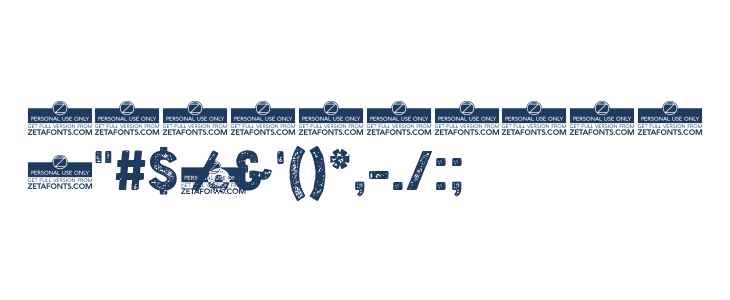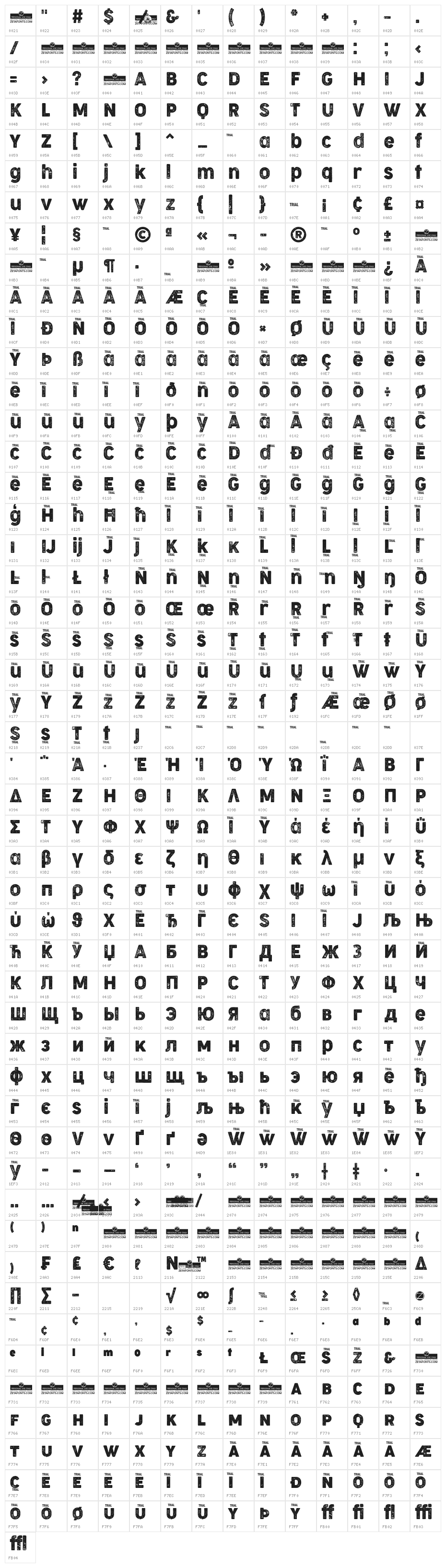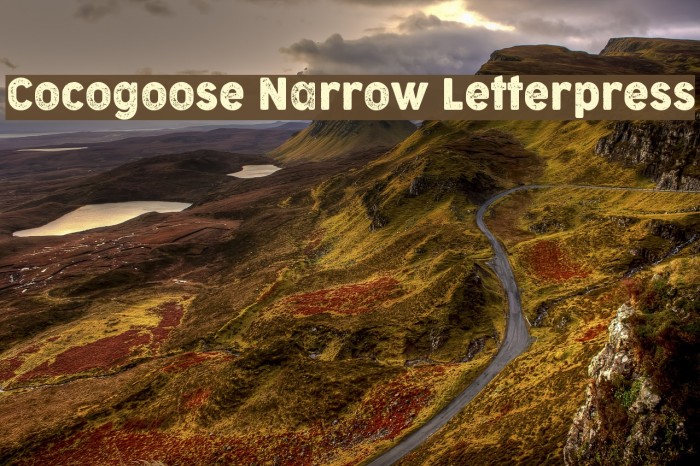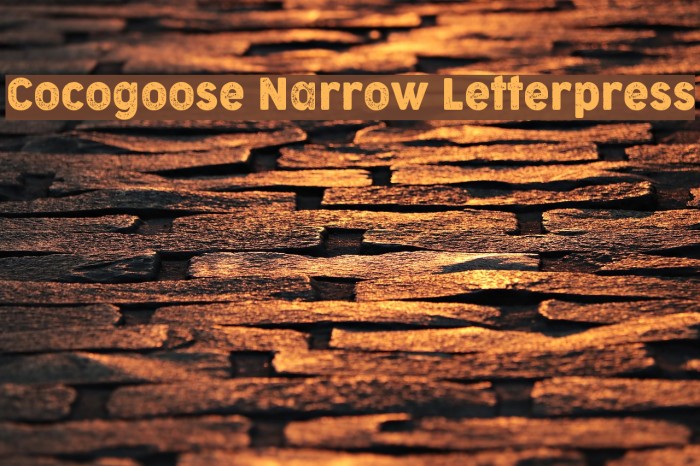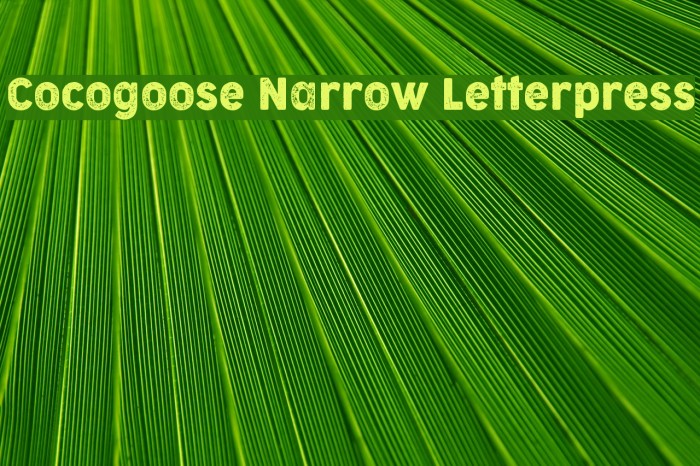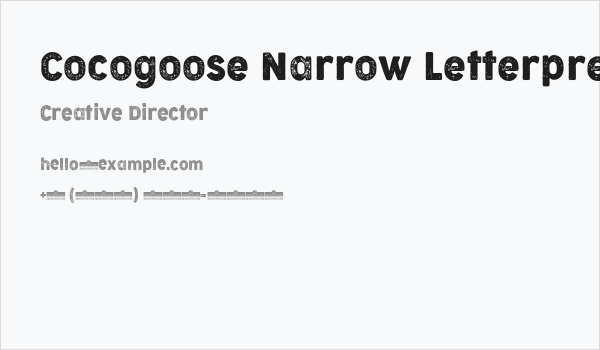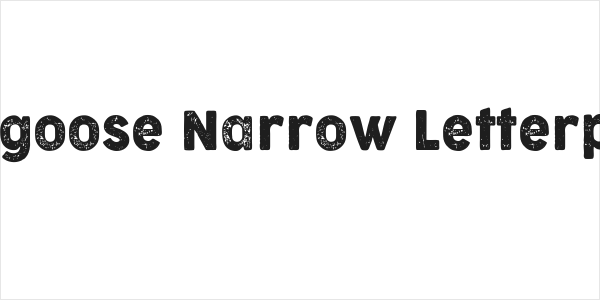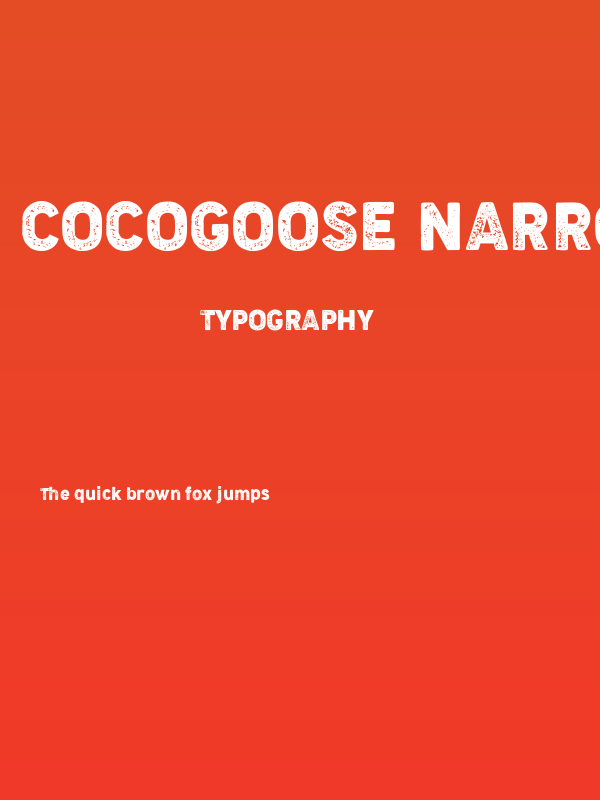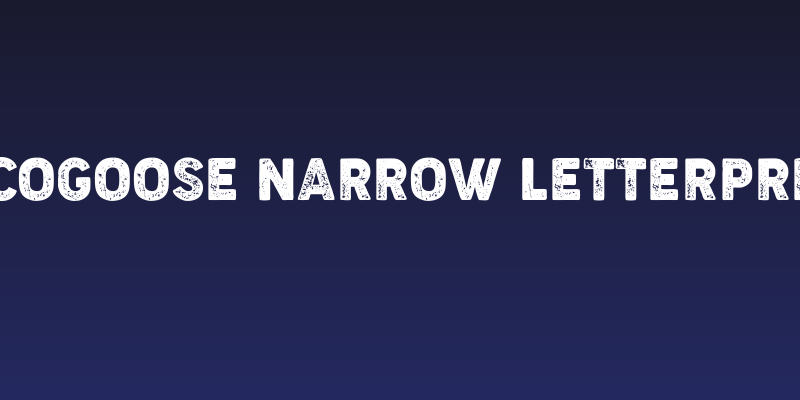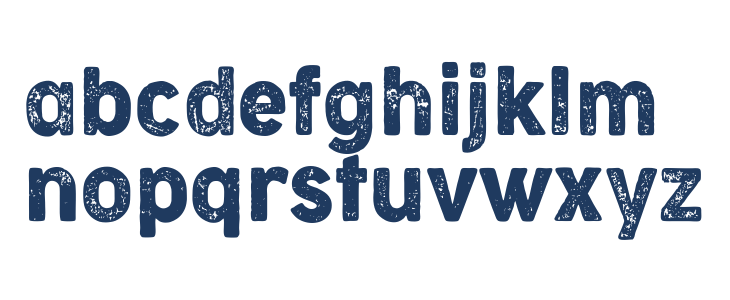
Cocogoose Narrow Letterpress Font
Cocogoose Narrow Letterpress Description
This font features a bold, distressed style with a letterpress effect, giving it a vintage and rugged appearance. The characters are narrow and display a textured, worn look, reminiscent of old printing techniques. The uppercase and lowercase letters maintain a consistent design, with rounded edges and a slightly condensed form. The numbers and special characters follow the same aesthetic, making the font cohesive and visually striking. Its unique texture adds character and depth, making it suitable for projects that require a touch of nostalgia or a handcrafted feel.
| Proposed Projects | Ideal for vintage-themed posters, branding, packaging, and any design requiring a rustic, handcrafted look. |